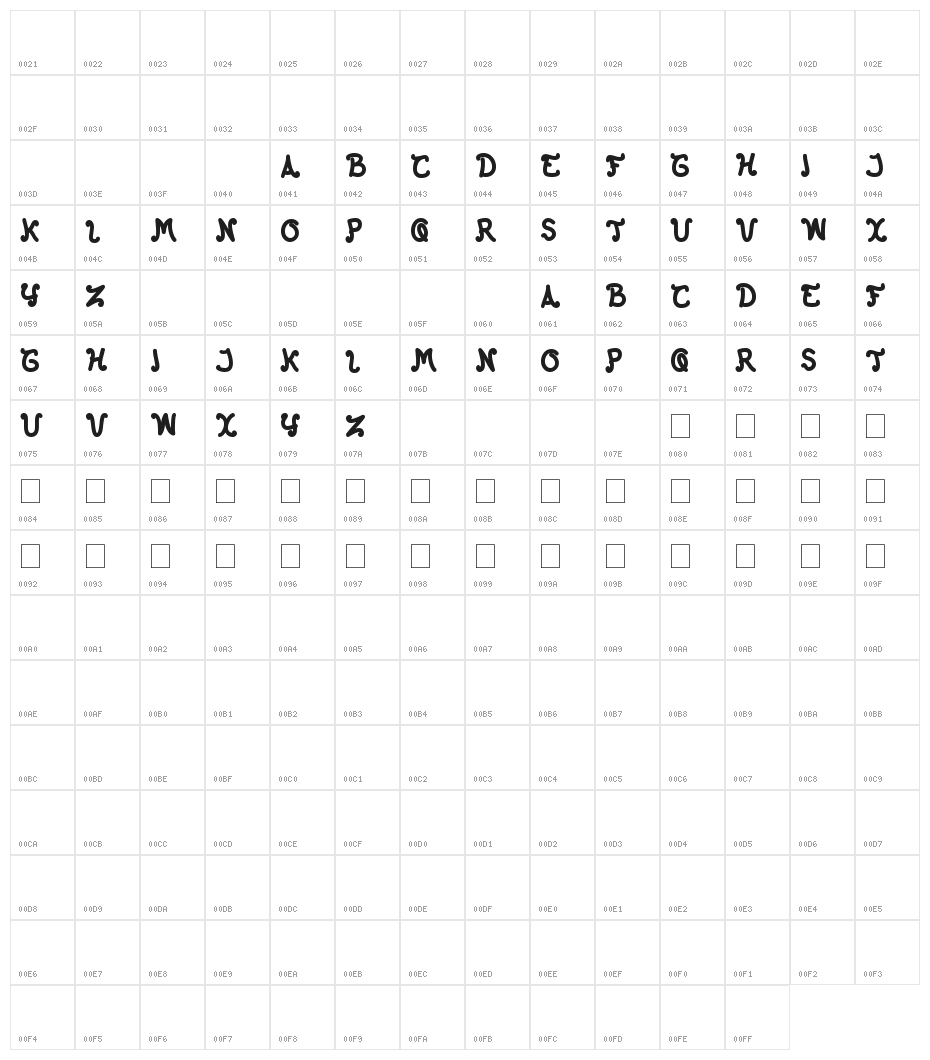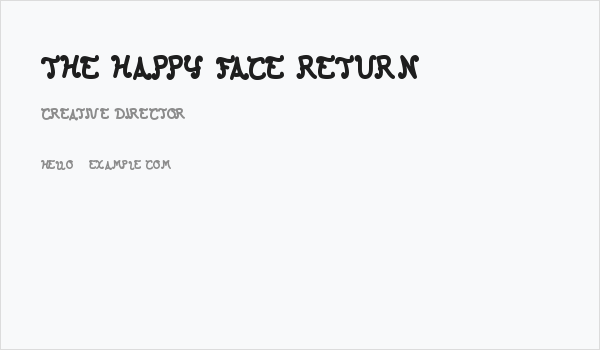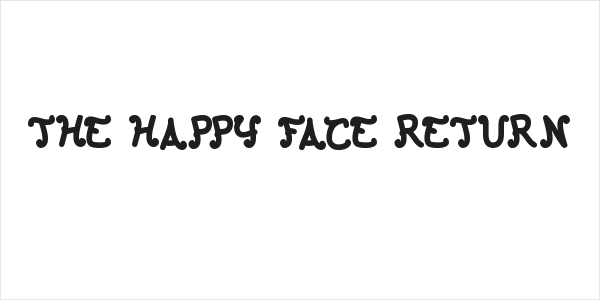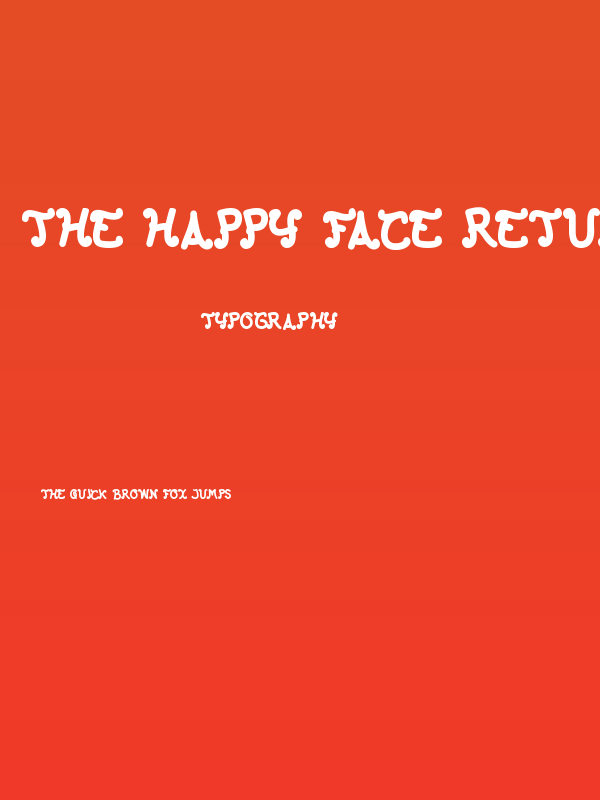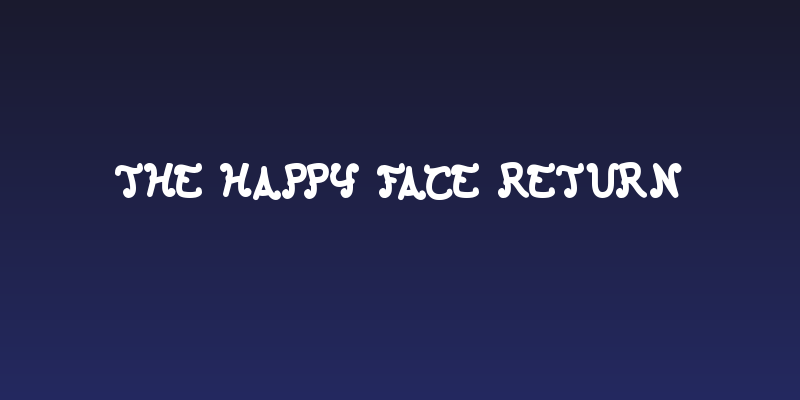
The Happy Face Return Font
The Happy Face Return Description
This playful and whimsical font features bold, rounded characters with a unique, bubbly style. Each letter is crafted with a consistent thickness, giving it a cohesive and friendly appearance. The font exudes a sense of fun and creativity, making it ideal for projects that aim to convey a lighthearted and joyful tone. The characters are well-spaced, ensuring readability while maintaining their distinctive charm. Its decorative nature makes it stand out, perfect for eye-catching designs. The font's style is reminiscent of hand-drawn lettering, adding a personal touch to any project.
| Overall Style | Playful, Whimsical, Decorative |